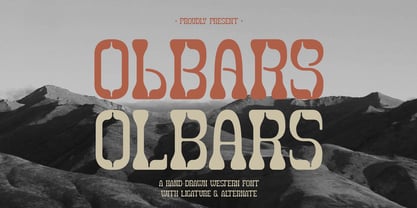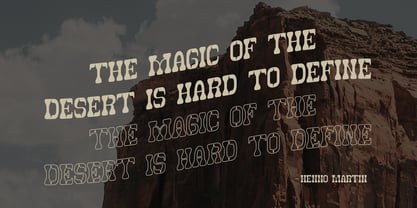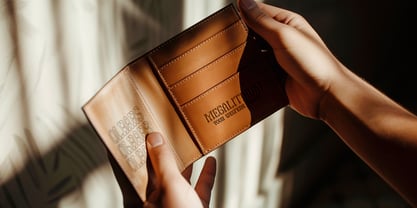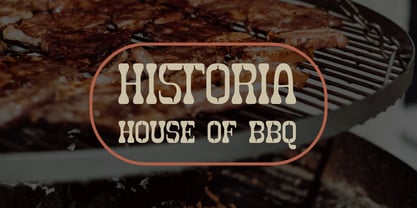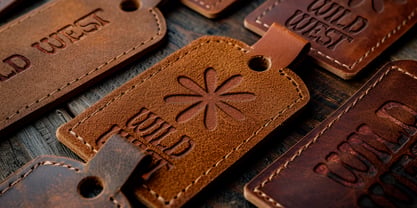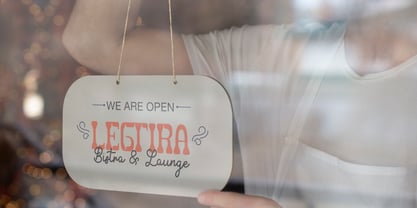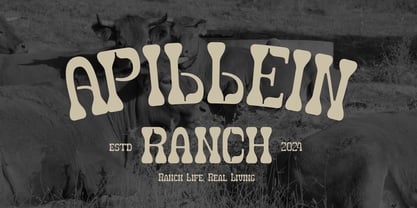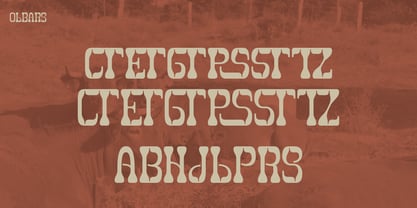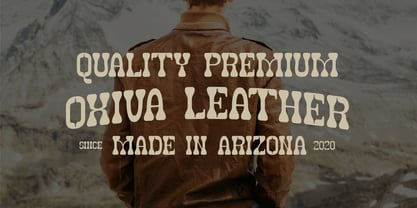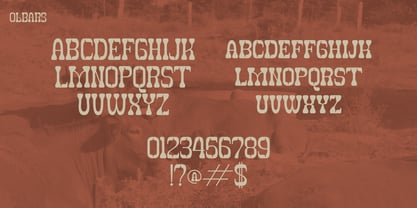
Olbars
A família de fontes Olbars foi desenhada por e publicada pela Tini Fitriani. Olbars contém 2 estilos e opções de pacote familiar. Saiba mais sobre esta família
Olbars | Western Font, from Denustudios, suitable for any projects such as: logos, branding projects, homeware designs, product packaging, mugs, quotes, posters, shopping bags, t-shirts, book covers, name card, invitation cards, greeting cards, label, photography, watermark, special events, and all your other lovely projects that need a Western Font taste.
• Regular and Italic
• Alternate and Ligature